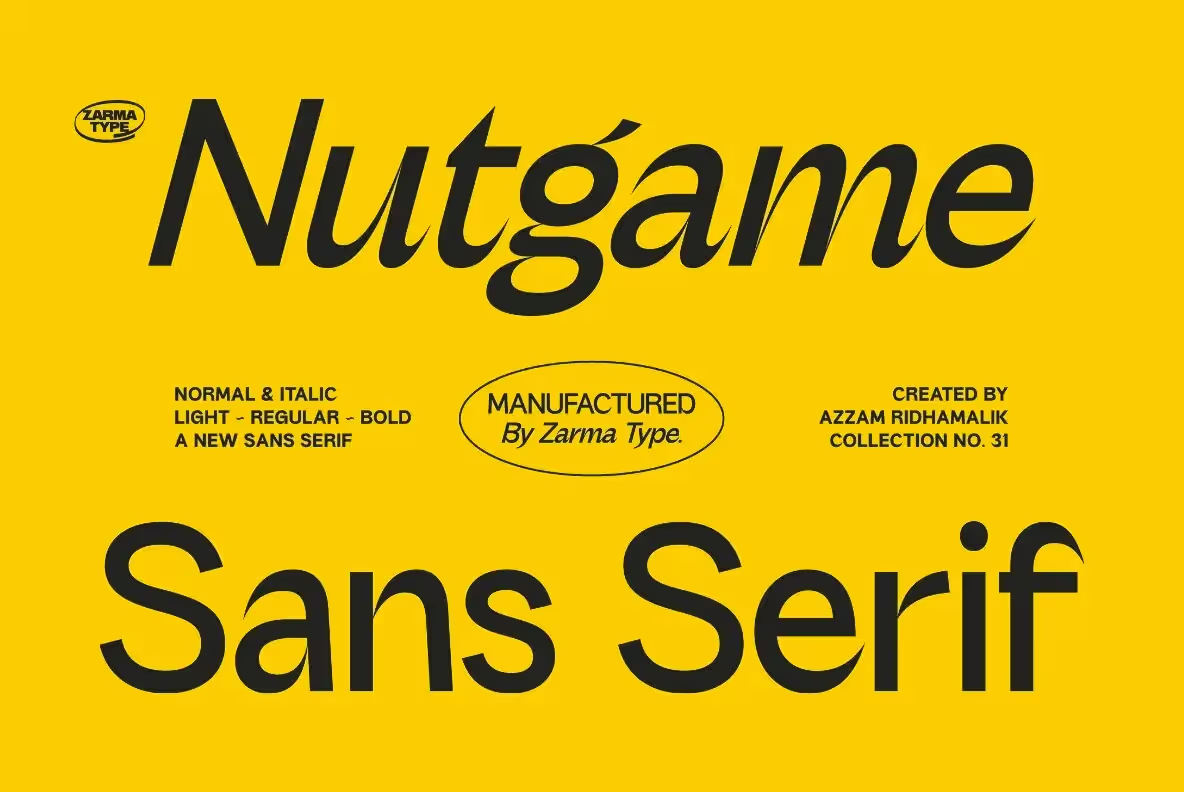
Nutgame Font
Nutgame is a modern sans serif font with a retro 70s flair. Available in normal and italic styles with three weights each, it’s perfect for branding, headlines, and editorial design.